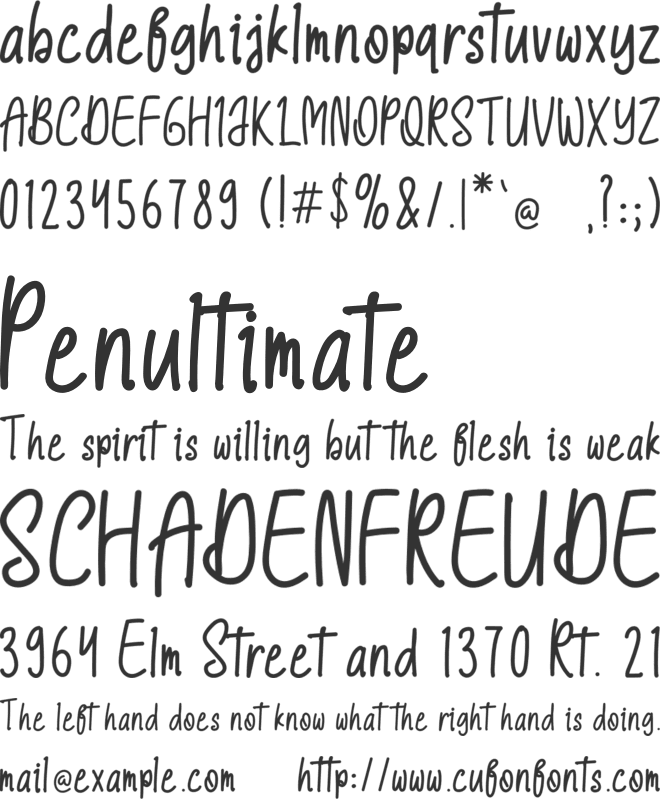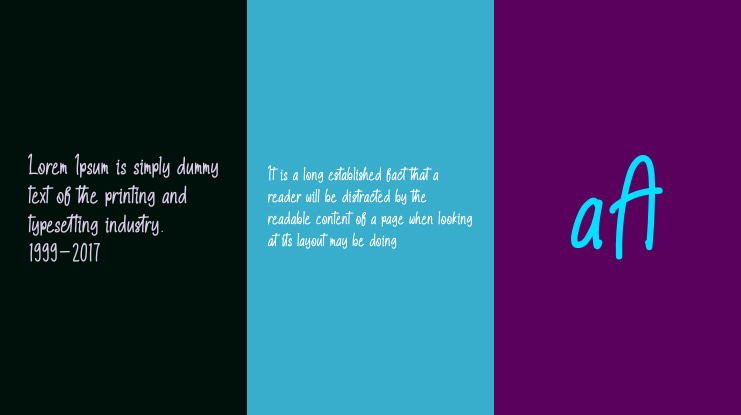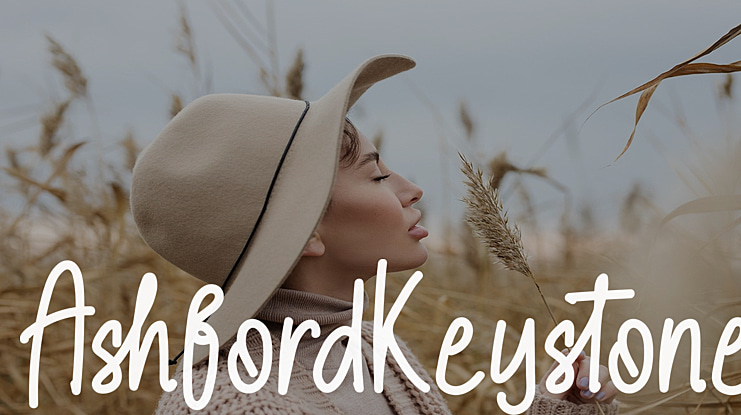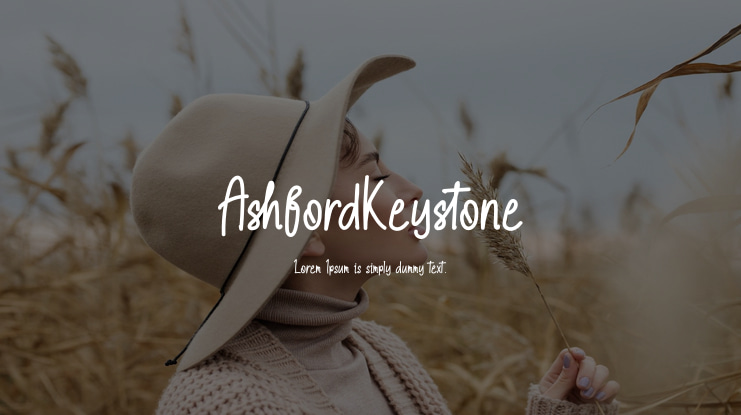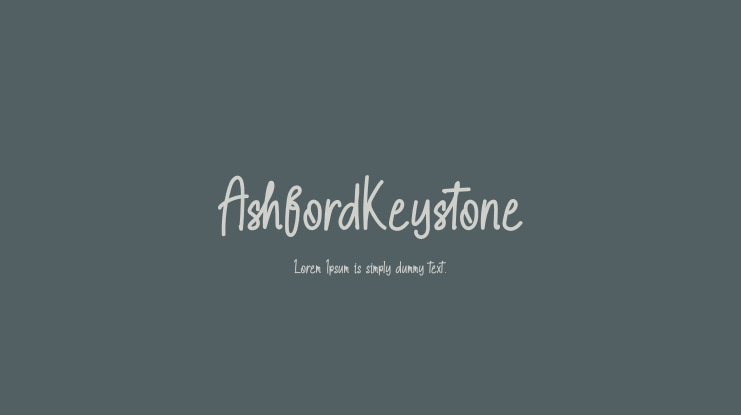
AshfordKeystone Font
Ashford Keystone Font
Ashford Keystone Font is a Modern Display Font that are made for various vector designs, printing such as digital wedding invitations, blogs, online shops, social media, while printing can be used in the field of product clothing, accessories, bags, pins, logos, business cards, watermarks and many others.